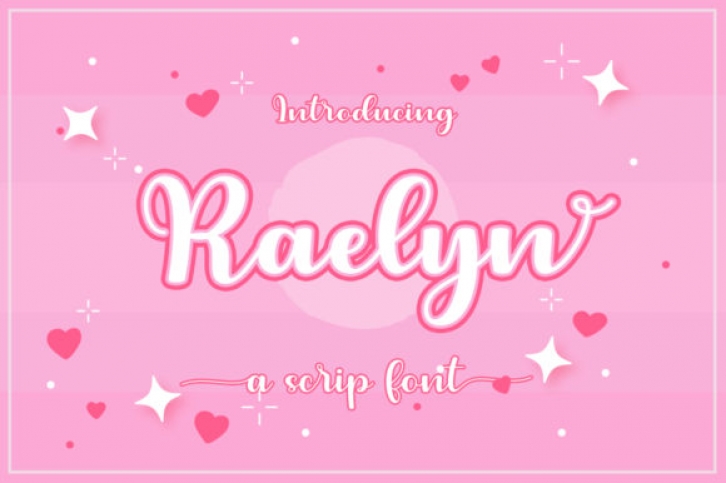
Raelyn is a ravishing script font, with an adaptable and readable style. It looks stunning on wedding invitations, thank you cards, quotes, greeting cards, logos, business cards and every other design which needs a handwritten touch.